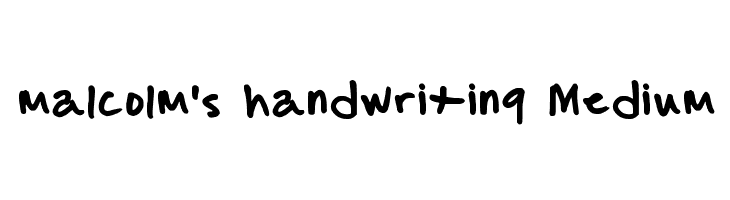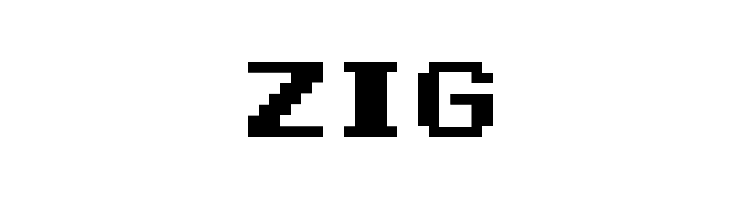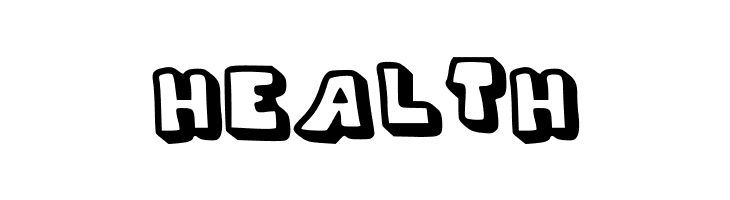
A playful, handwritten font with a casual and friendly style.
A bold, rounded, and italic font with smooth curves and a modern look.
Futuristic, geometric outline font with angular shapes.
A bold, playful script font with dynamic, rounded strokes.
A playful and whimsical font with bold, rounded characters and dynamic flair.
A bold, artistic font with calligraphic influences and dynamic, angular strokes.
A graceful and flowing script font with elegant, connected letters.
A bold, decorative font with a three-dimensional, geometric style.
A bold, expressive script font with a modern yet classic appeal.
A modern, elegant font with high contrast and slender, sophisticated characters.
A playful, handwritten font with a dynamic and artistic style.
A bold, angular, and futuristic geometric font.
A bold, italic font with a dynamic and aggressive style.
An elegant script font with fluid, connected strokes and a classic calligraphic style.
A futuristic, digital-style font with geometric and angular characters.
An elegant, elongated font with thin strokes and a modern aesthetic.
A whimsical, hollow, and inverse decorative font with bold outlines.
A bold, hand-drawn style font with a lively and energetic appearance.
A bold, modern font with geometric shapes and unique letter designs.
A bold, three-dimensional font with a modern and dynamic style.
A bold, expressive script font with dynamic curves and strong strokes.
A bold, playful font with chunky, cartoonish letterforms.
A sophisticated script font with flowing, interconnected characters and high contrast strokes.
A modern, geometric font with a 3D effect and bold, angular lines.
A playful, bold handwritten font with a modern twist.
A playful and dynamic font with bold, sweeping strokes and a hand-painted feel.
A bold, playful script font with a hand-drawn, whimsical style.
A futuristic, geometric font with a semi-italic slant and consistent stroke thickness.
A modern, elegant script font with flowing, connected characters.
A bold, hand-drawn font with a playful and dynamic style.
A dynamic script font with elegant, flowing letterforms and medium contrast.
An elegant, cursive font with flowing, intricate designs.
A bold, decorative font with a futuristic and edgy style.
A dynamic brush-style font with rough, textured strokes and a modern calligraphic flair.
A bold, geometric font with a halftone pattern, ideal for striking visual designs.
设计师偏爱 Oranjipen-DEMO, Bonaro Rounded Italic Demo Rounded Italic, Yamato Class Outline, So Frosty and Little Kitten,因为其造型干净、适用范围广—— 从品牌识别到落地页、海报都能胜任。